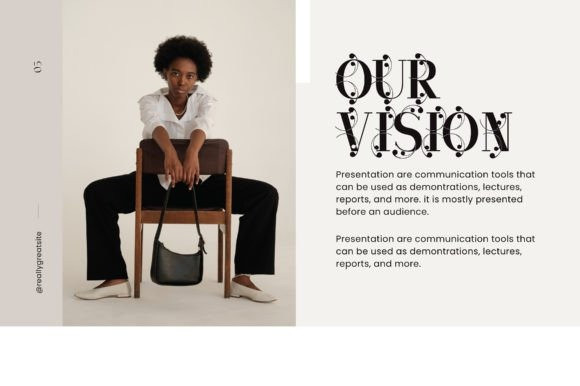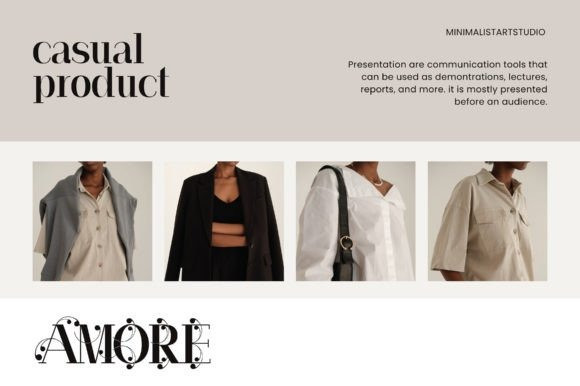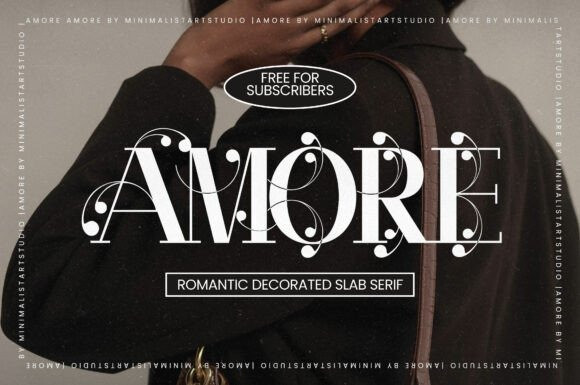
Amore Serif Font
Amore Serif Font is a minimalist, elegant, compressed, and eye-catchy slab serif typeface. It comes with classic glyphs and decorative glyphs alternatives. Its bold glyph construction renders it a valid choice when you are working on a project that requires grabbing attention. Normal glyphs version is suitable to use to obtain clean designs and extremely readable results. The decorative version can be used to add a unique touch to your creations. Add it to your minimalist creative ideas and notice how many nice results can be easily obtained.